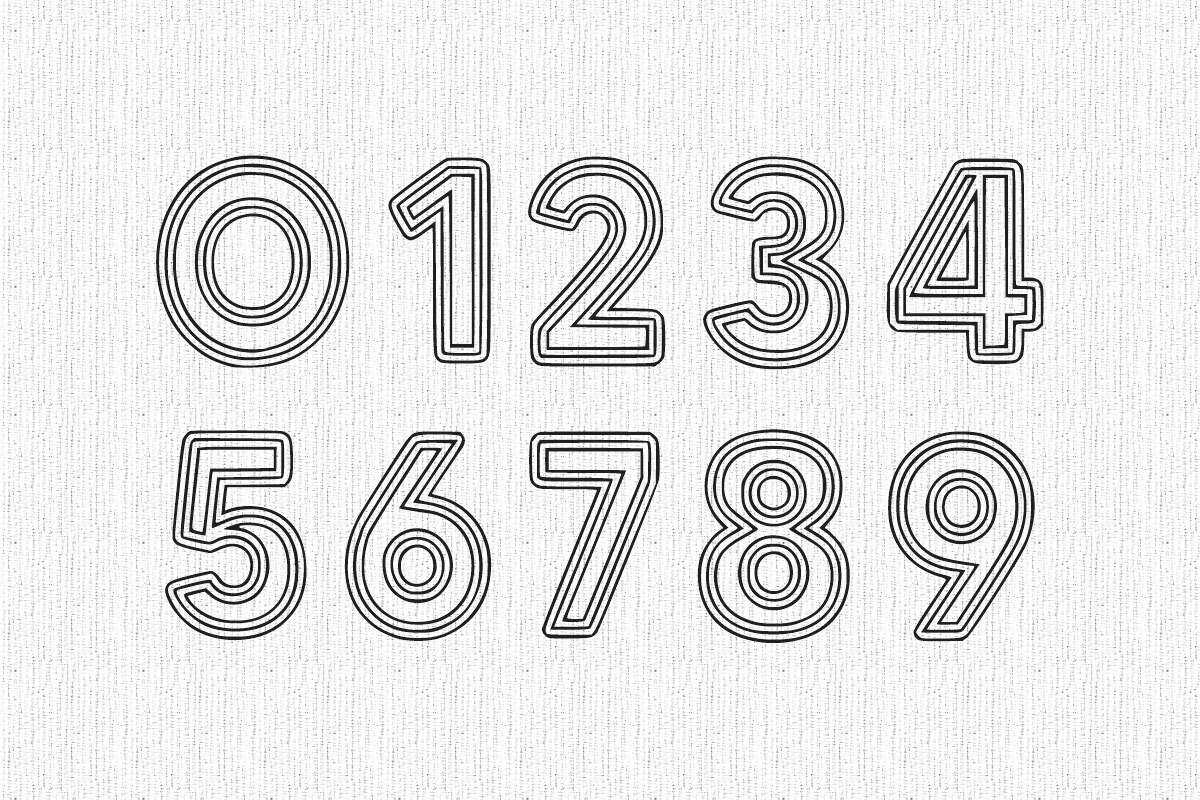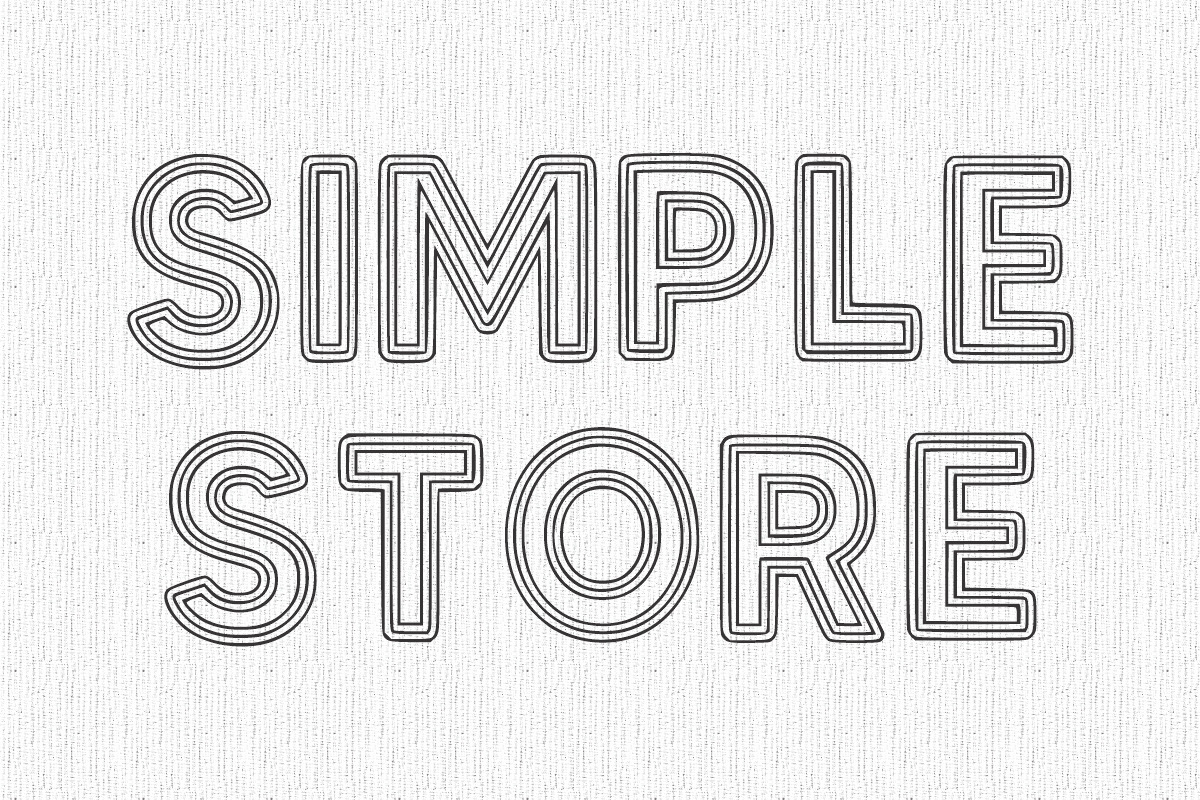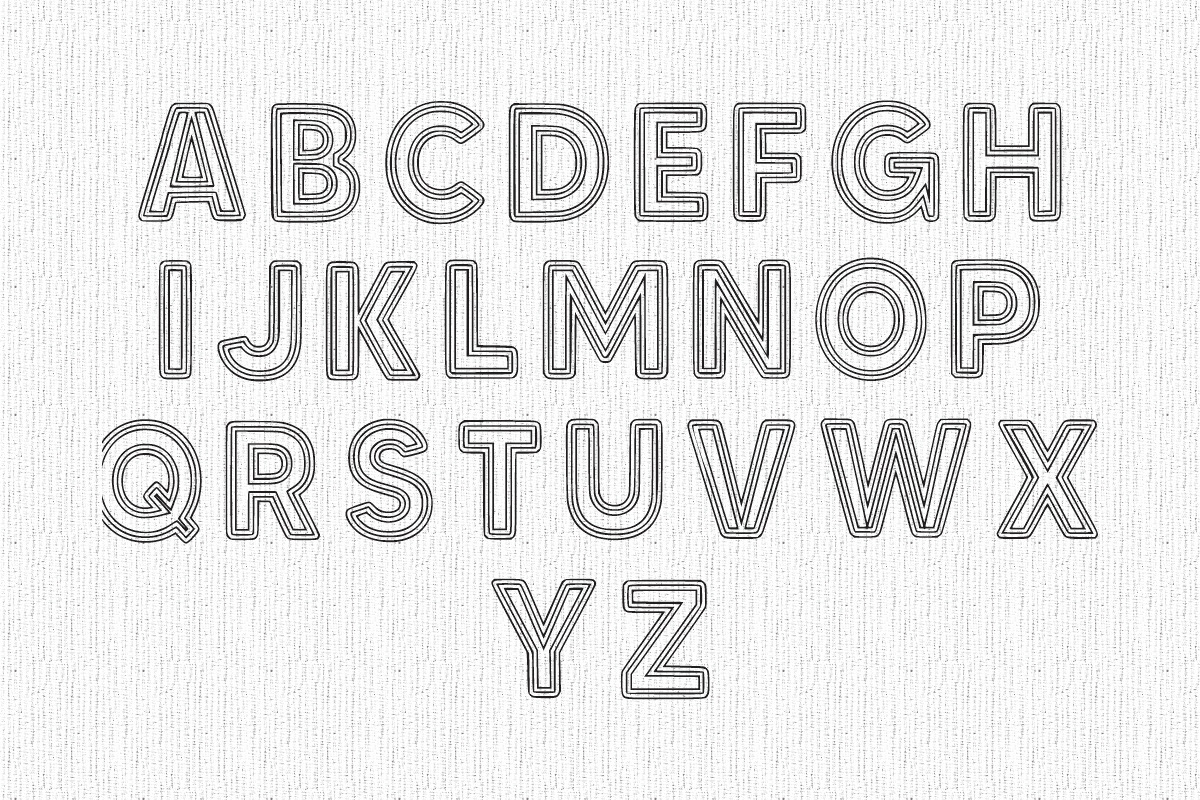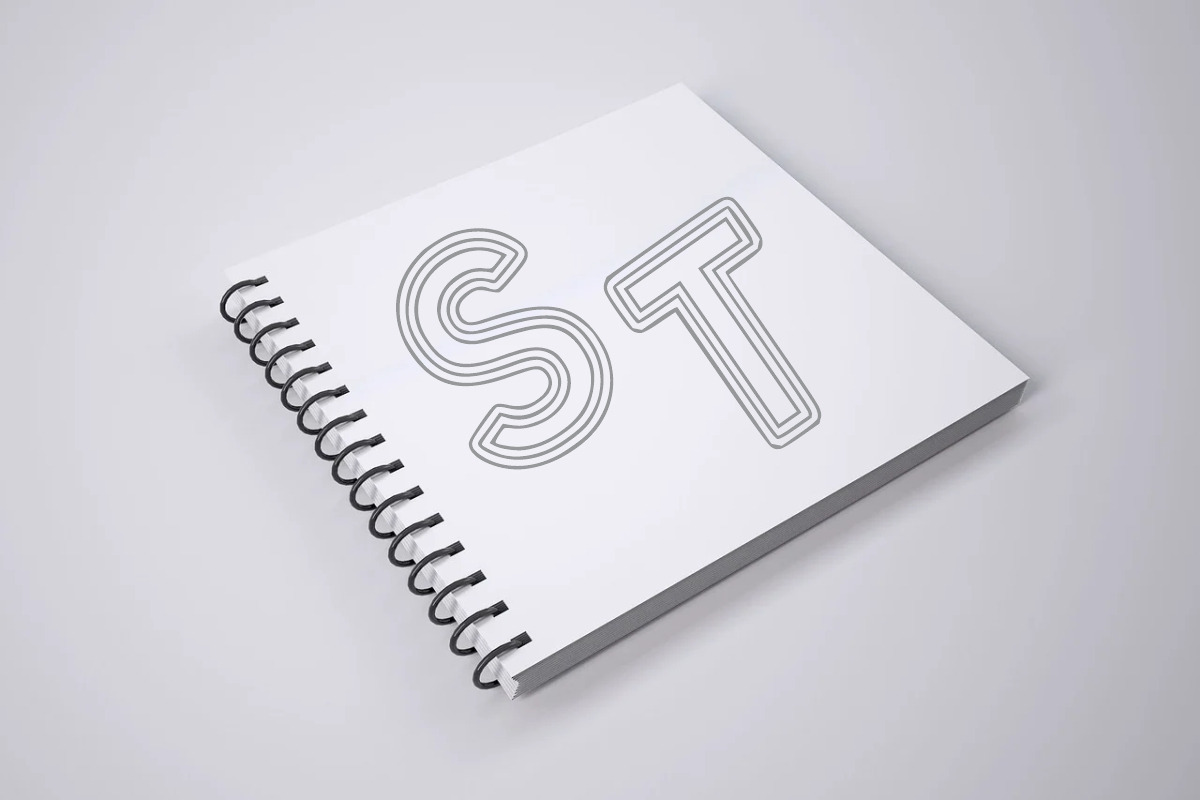
Triple Outline
Triple Outline is a bold and modern display font featuring clean, geometric letterforms with a striking triple-line outline effect. Its layered design brings depth and dimension, making it perfect for projects that need a sleek yet playful vibe.
Whether you’re designing eye-catching posters, trendy logos, stylish apparel, creative packaging, or digital graphics, Triple Outline adds a fresh, contemporary edge. With its versatile style, this font stands out in both minimalist and vibrant layouts, offering endless creative possibilities for designers looking to make their text pop.